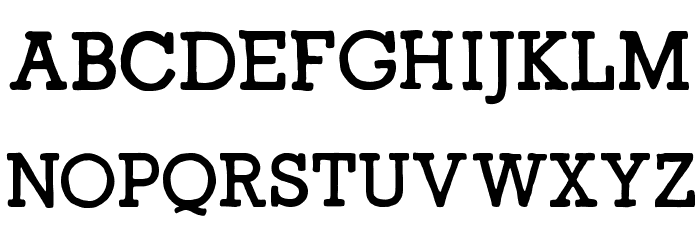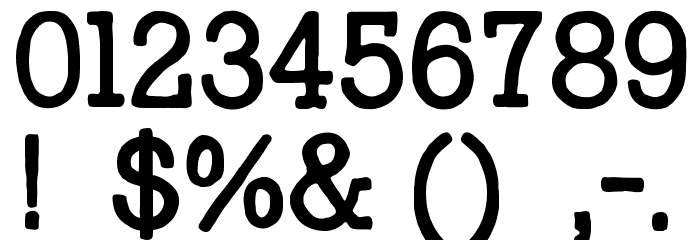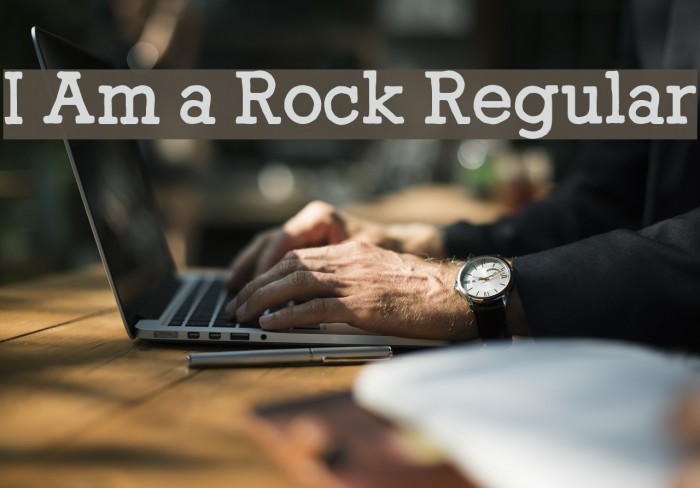
I Am a Rock Regular Font
This font features a bold and robust design with thick, consistent strokes that convey strength and stability. The characters are well-defined with a slight curvature, giving them a friendly yet authoritative appearance. The uppercase letters are strong and commanding, while the lowercase letters maintain a harmonious balance with rounded edges. The numerals are clear and easily readable, making them suitable for various applications. Special characters are distinct and complement the overall style, ensuring versatility in usage.
A bold, robust font with thick strokes and a friendly yet authoritative appearance.
- Proposed Projects: Ideal for branding, headlines, posters, and any project requiring a strong visual impact.